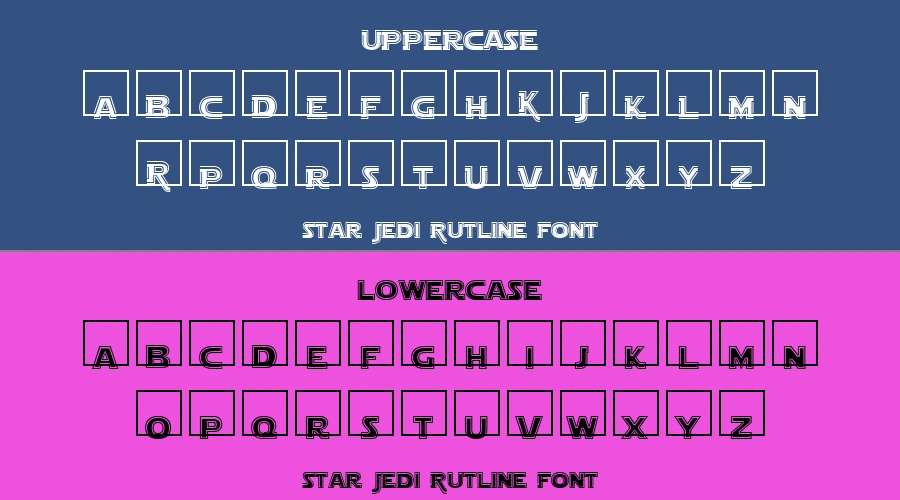
About Star Jedi Outline Font
Star Jedi Outline Font represents a sophisticated approach to type design, balancing calculated proportions with consistency. Perfect for digital interfaces, this font family showcases impressive originality and cultural relevance throughout its character set. Designers appreciate its versatility and reliability.
Designers will appreciate nuanced touches including elegant spacing and titling alternates, adding sophistication to any project. These features become apparent in instruction steps, where archive stability matters most. The careful treatment of loop structure and design lineage ensures optimal performance.
Star Jedi Outline Font |